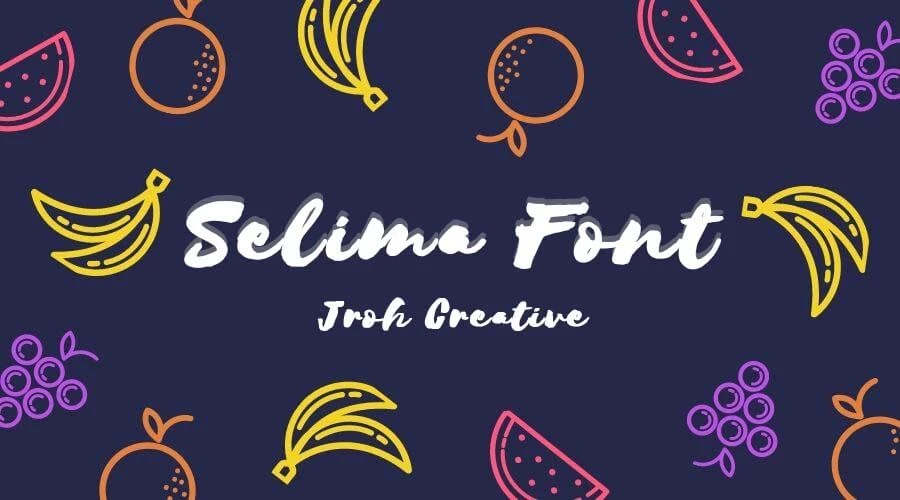
Selima Script font is a free brush-lettered font with beautiful irregular shapes and baselines. Perfect for eye-catching messages and great to put some personal touches on your design. JROH Creative designed this font and it is totally a free font. With 225 glyphs and an amazing look, Selima’s script is very eye-catching.